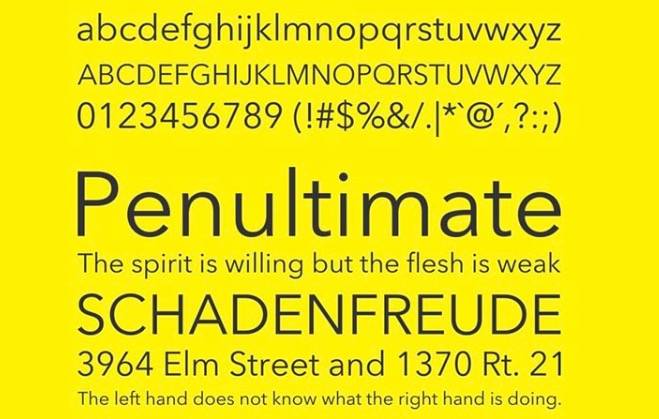
Snapchat Font was designed by Bobby Murphy Evan Spiegel, and Reggie Brown. After that, this font was developed by Snapchat Incorporation. Snapchat was founded on 9.2011 and achieved about 500 million users every day.
Snapchat Sans Serif Font